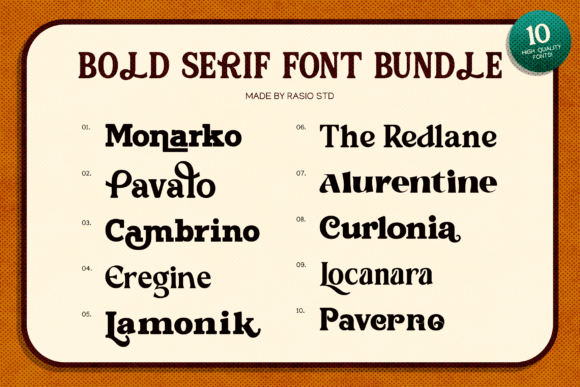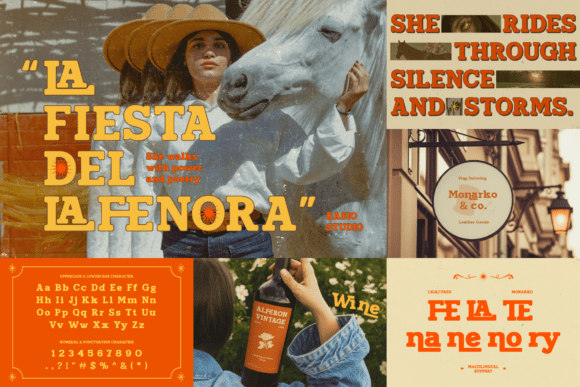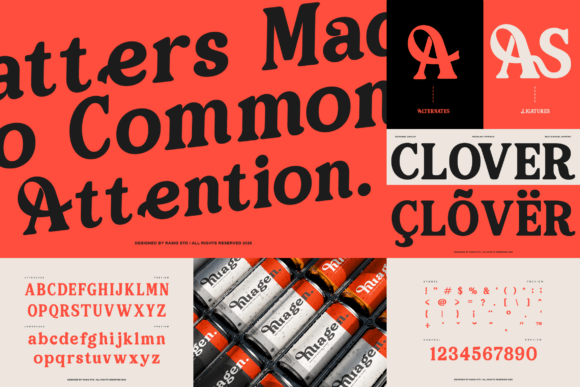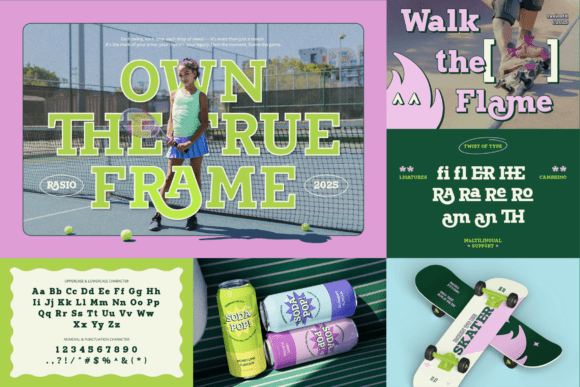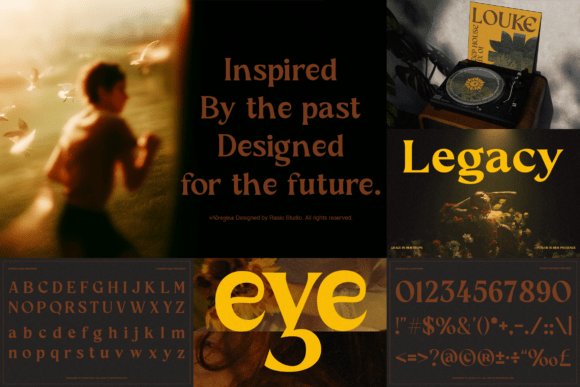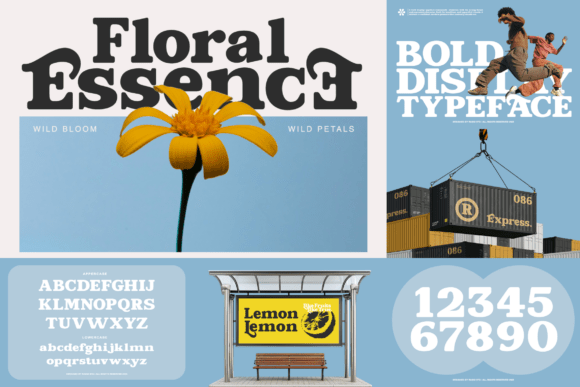
Introduction to Bold Serif Bundle Font
Bold Serif Font Bundle The Bold Serif Font Bundle is a strong and character-driven type collection designed to make an immediate visual impact.
Featuring bold serif letterforms with distinctive shapes and confident proportions, this bundle blends classic serif foundations with expressive, modern display energy Each typeface is crafted to stand out in headline and display use, delivering powerful contrast, solid weight, and eye-catching details.
Key Features of Bold Serif Bundle Font